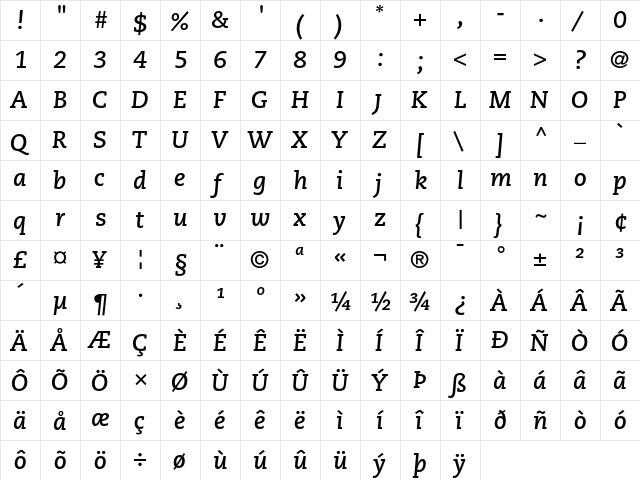
PMN Caecilia 76 Bold Italic
Design Context for PMN Caecilia Typeface
PMN Caecilia is a composed and adaptable typeface that performs quietly and consistently across a wide range of design contexts. Its italic angle brings a sense of urgency and motion to the letterforms. Its bold stroke weight gives it real presence on the page.
Pro Tip: Try PMN Caecilia for annotation and caption copy alongside an upright companion — the contrast in angle creates a dynamic but ordered typographic system.